Choosing sign fonts sounds simple until you’re staring at a long list with no idea which one to choose. A font that looks clean on-screen can feel cramped when cut on metal, while another that looks elegant on a plaque can become hard to read when the text is too small. If you’re matching existing branding, the “right” choice may not be the brand font at all – it’s the one that reads the best where the sign will live.
In this guide, we’ll break down which sign fonts usually look best depending on the type of sign you’re creating.
Why Does Product Type Drive Font Choice?
Ultimately, different products, such as metal letters vs plaques, read differently, even if they both have similar text on them. Different sign types are read in different ways, such as taking a fast glance at storefront signs versus close reading for memorial plaques.
The best sign font for your needs depends on:
- Viewing distance
- How long someone has to read
- The amount of text
- Lighting and angle
- Material and production method
Because of the difference in how certain signs are normally read, what “good” looks like is different for each. The best sign fonts for one can be disastrous for the other.
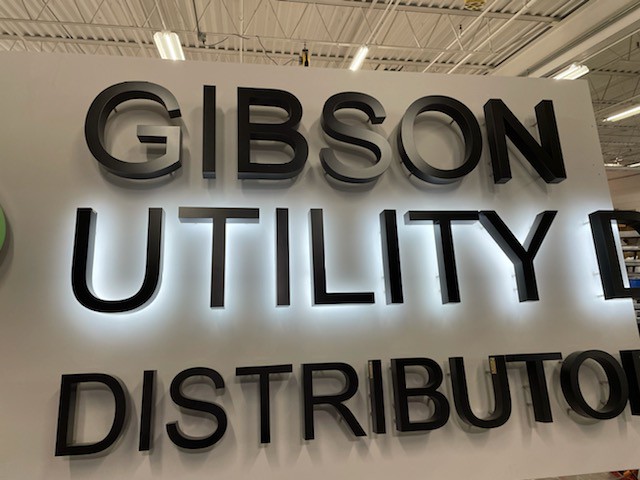
Dimensional Letters and Large Building Signs
This type of signage is best for business names, building identification, dimensional logos, and exterior letter signage. People read these signs fast, and usually from far away or at an angle.
Given those details, dimensional letters typically need sign fonts that are:
- Simple and open
- Instantly recognizable
- Not too thin or decorative
- Balanced in spacing
Some top picks for sign fonts for dimensional letters include:
- Helvetica
- Arial
- Gotham
- Avenir Next
- Times New Roman
Choosing a trendy, stylish font that looks “cool” up close can quickly become unclear when read from the street. If your sign is going to be read while someone is moving, such as walking or driving, prioritize clarity over style.
Lobby Signs and Interior Feature Walls
These types of signs are seen in reception areas for corporate identity or office logos. People tend to read these signs more closely and may view them for a longer period of time.
You have more flexibility with signs like this because people view them when they’re slowing down. Many sign fonts work well, as long as they’re:
- Clean and professionally spaced
- Readable in your lighting conditions
- Aligned with your brand tone
Some top picks for sign fonts for interior feature walls include:
- Montserrat
- Futiger
- Trajan
- Baskerville
Using overly thin strokes or high-gloss looks can create glare and reduce legibility under interior lighting. As a quick rule, remember that if people stand within 5-15 feet of the sign, you can go heavier with your design. If they’ll be reading from further away, prioritize readability first.
Directories, Wayfinding, and Informational Signs
These types of signs are typically seen in multi-tenant buildings, campuses, hospitals, hotels, and offices. They’re usually read by people scanning quickly while they’re in motion. Because of this, these types of signs need to focus highly on:
- Legibility
- Clear hierarchy with headers and smaller details
- Easy to distinguish characters
- High contrast with the background
- Consistent layout rules
Some top font picks for wayfinding include:
- Helvetica
- Arial
- Myriad Pro
- Univers
You may be tempted to use a decorative or condensed font to fit more text, but this often results in a directory or wayfinding sign that’s difficult to read. The priority here should be clarity and predictability, so users can find their way around effortlessly.
Plaques, Donor Recognition, and Commemorative Signage
This signage is used primarily on donor walls, memorials, or for historical recognition. They’re often read at a close range and slower, since they have more text and offer additional context to the environment.
Because plaques usually include multiple lines for details like names, dates, titles, and messages, the best sign fonts are:
- Comfortable to read in paragraphs
- Clear at smaller text sizes
- Strong in numerals for dates
- Designed with good spacing so text doesn’t feel cramped
Some classic font choices for plaques include:
- Times New Roman
- Palatino
- Trajan
- Garamond
- Gotham
Similarly to directories, you may consider using condensed fonts to make everything fit, but this can reduce legibility. Try to reduce your word count and increase your font size before trying to compress font on plaques.
Does Serif vs. Sans-Serif Font Matter for Dimensional Letters?
Both serif and sans-serif fonts can work well for metal letters. Sans serif usually feels clean, modern, and highly legible for building signage. Serif fonts appear more “established,” but need enough size to keep fine details readable.
Final Thoughts: The Best Sign Fonts Are Readable!
The best sign fonts aren’t the ones that are the most trendy or unique, they’re the ones that look confident and stay readable in the real world.